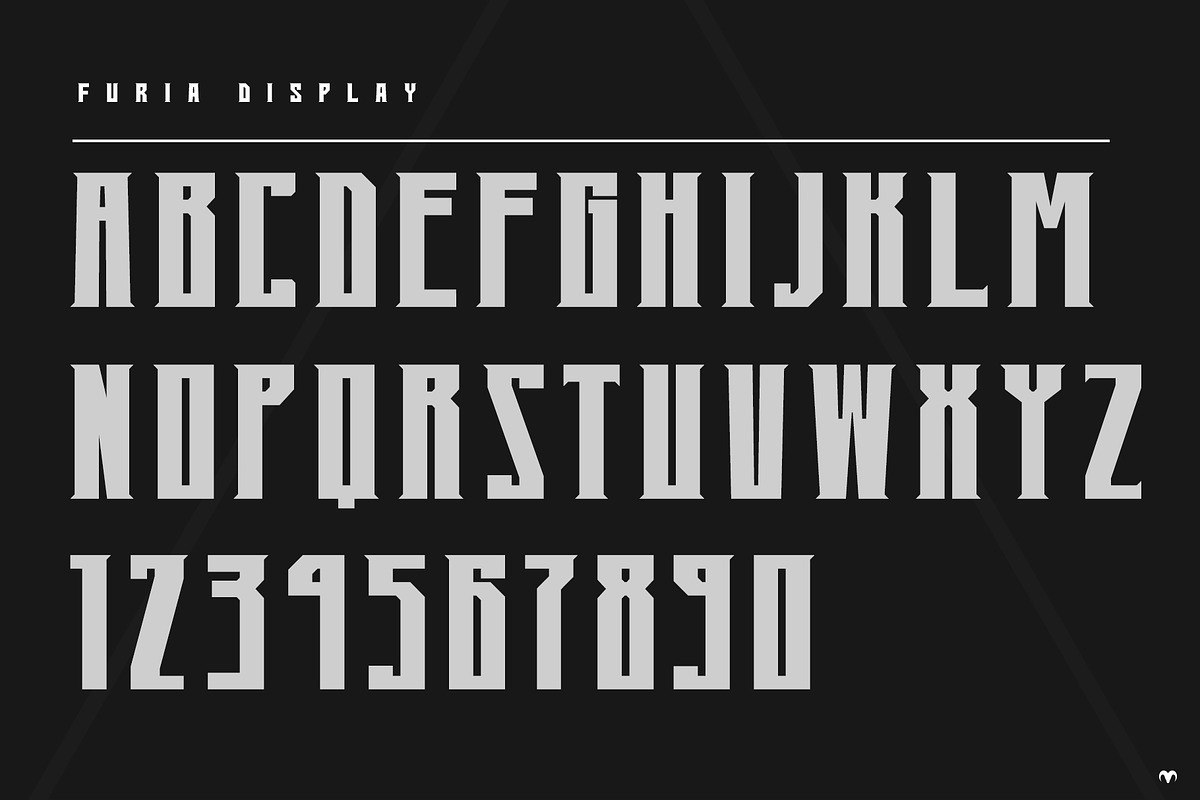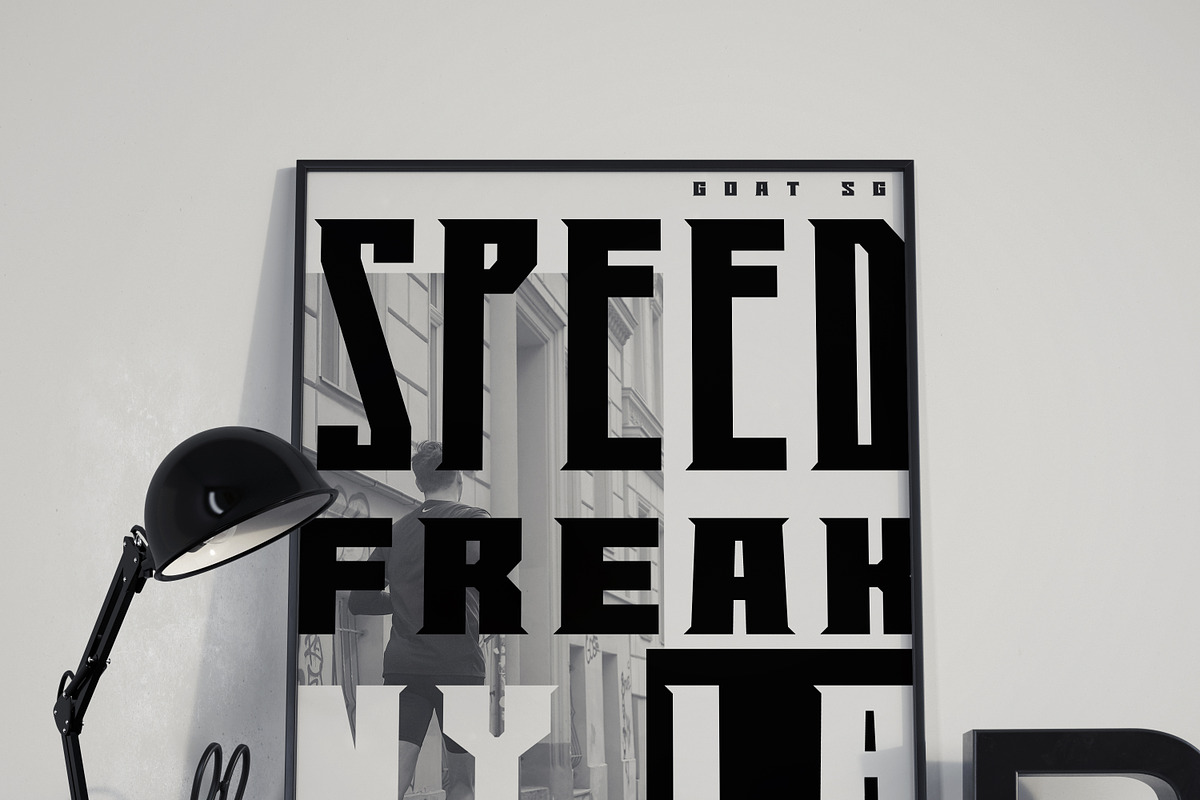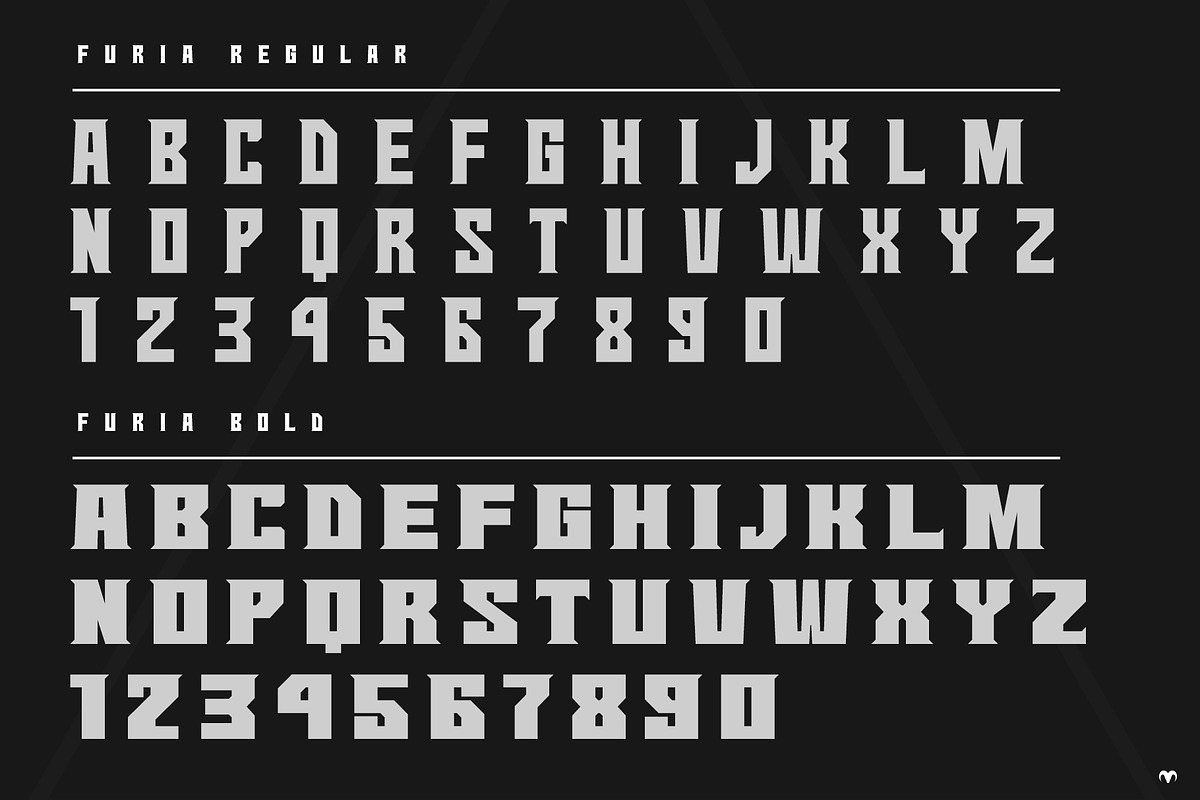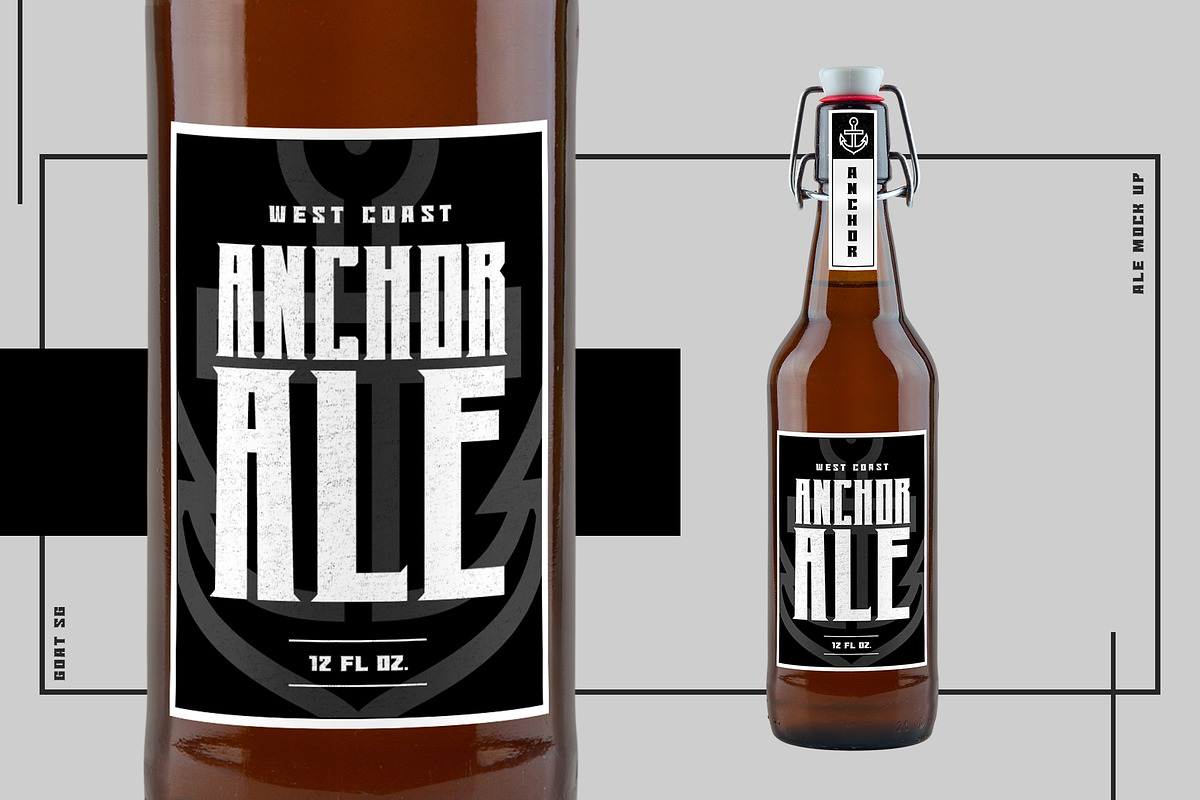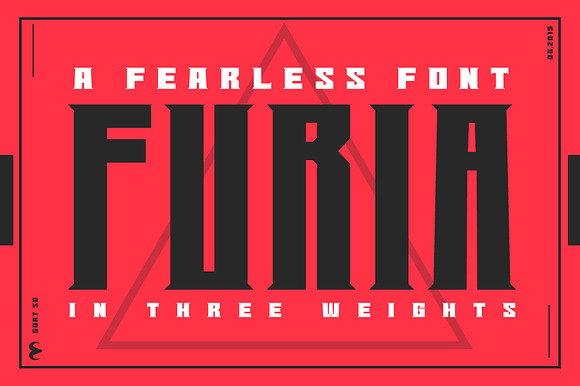
FURIA - A FEARLESS FONT
FURIA IS A FEARLESS FONT that brings your designs to the next level. In THREE distinct weights, it is sure to be a great utility in your design tool box.
- FURIA Regular
- FURIA Bold
- FURIA DIZPLAY